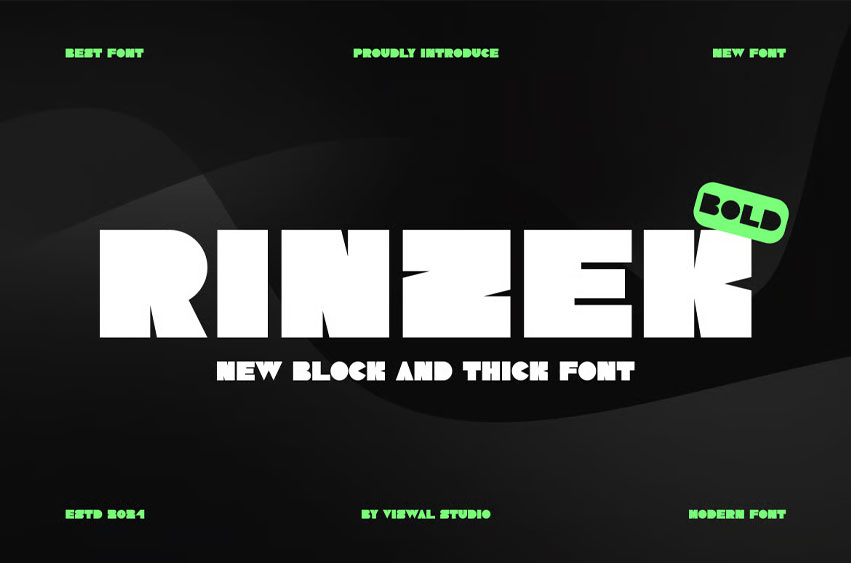
Rinzek Font
Rinzek Font is suitable for badge, labels, logo, branding, magazine, poster and etc. Our fonts have Uppercase & Lowercase, Numeral & Punctuation, Multilingual support and Opentype Features.
For Amazing designs you can mix with other fonts as a complement.